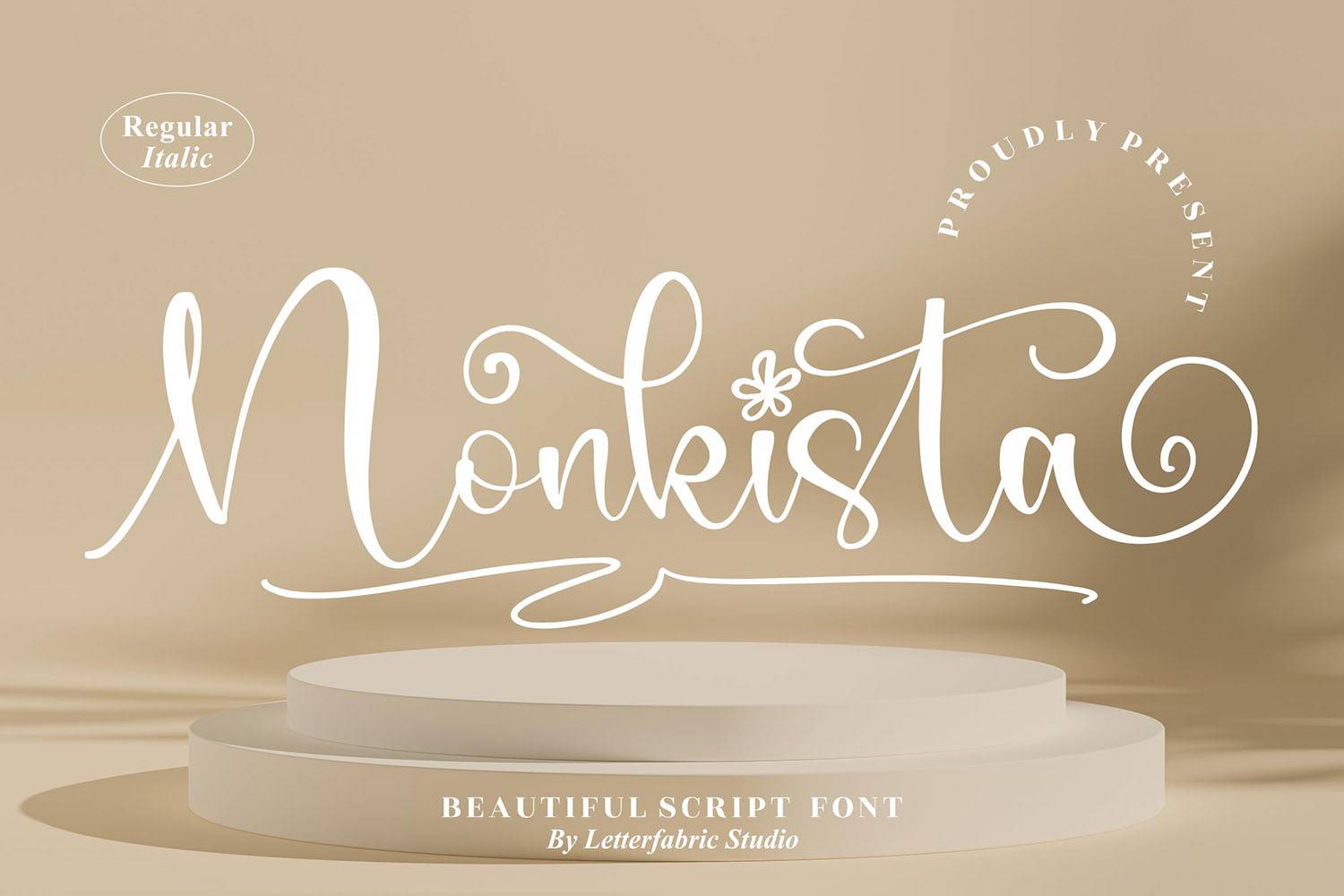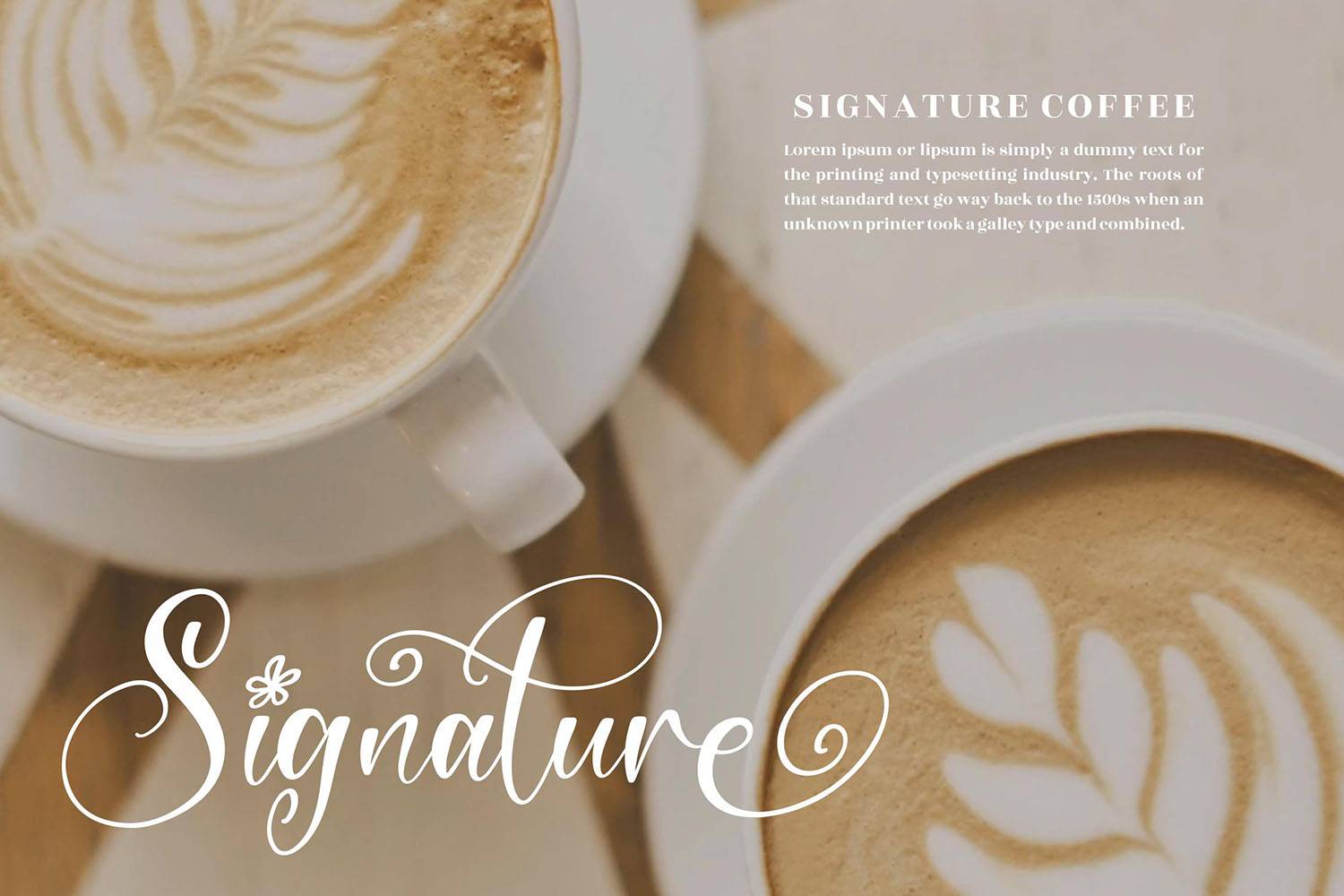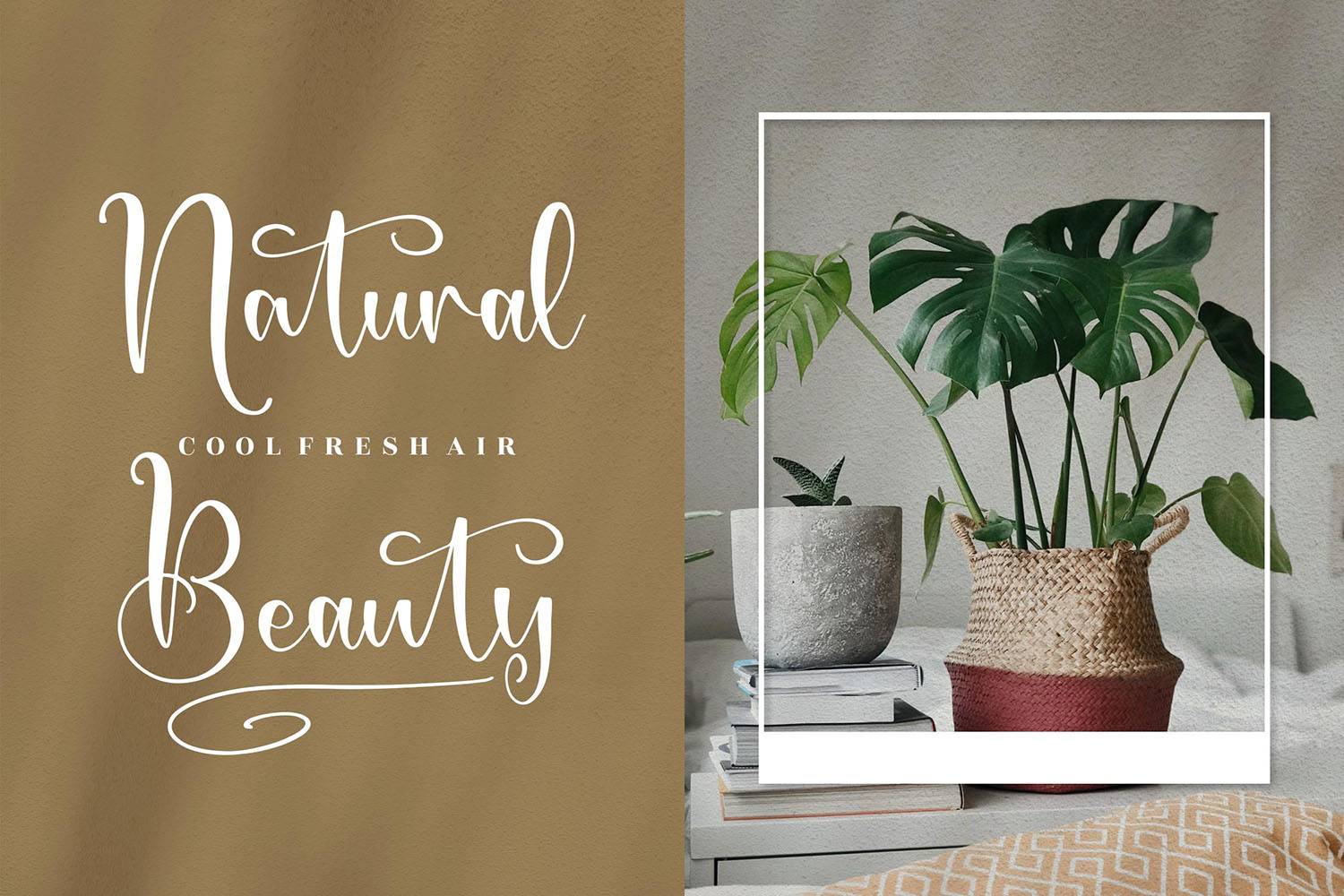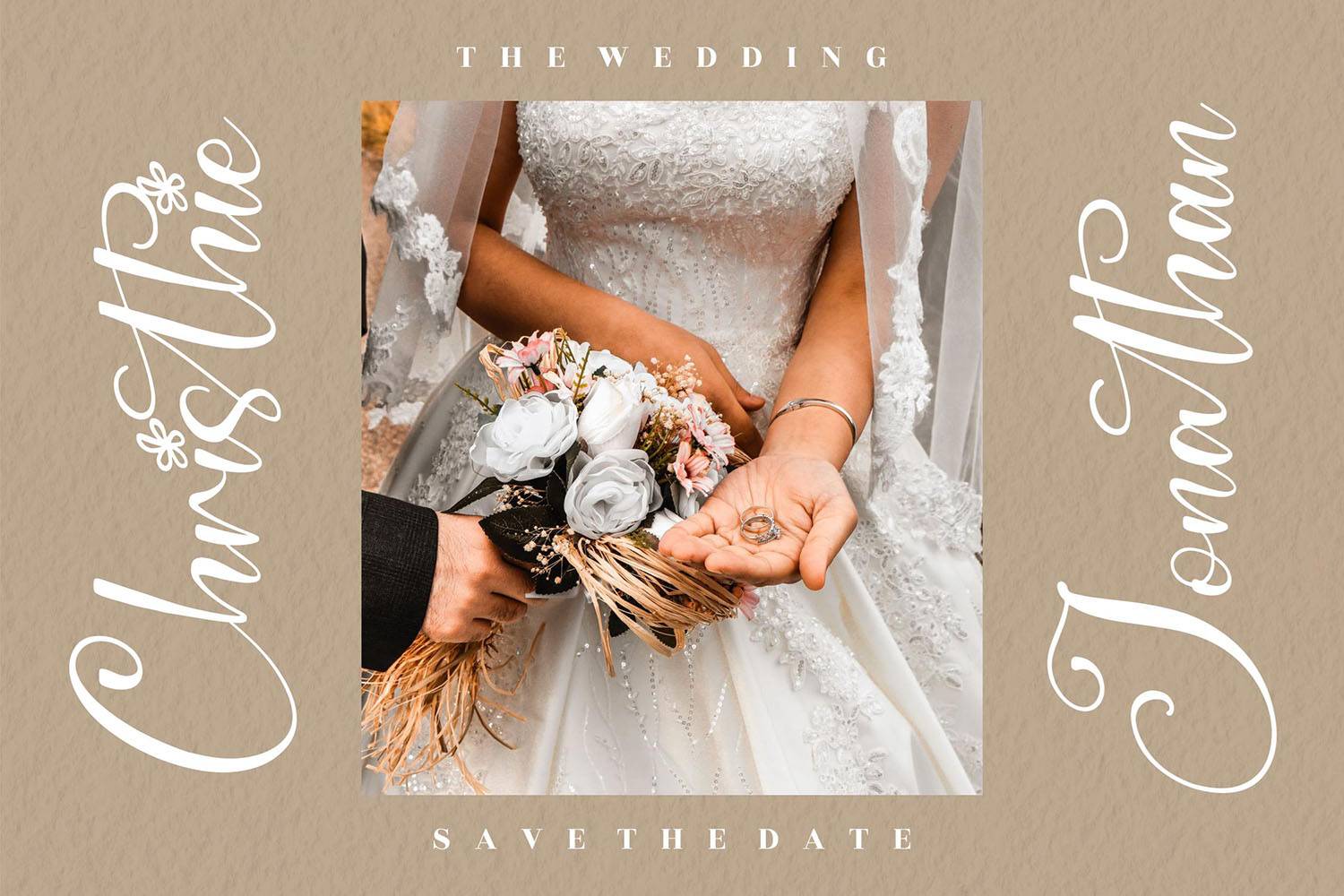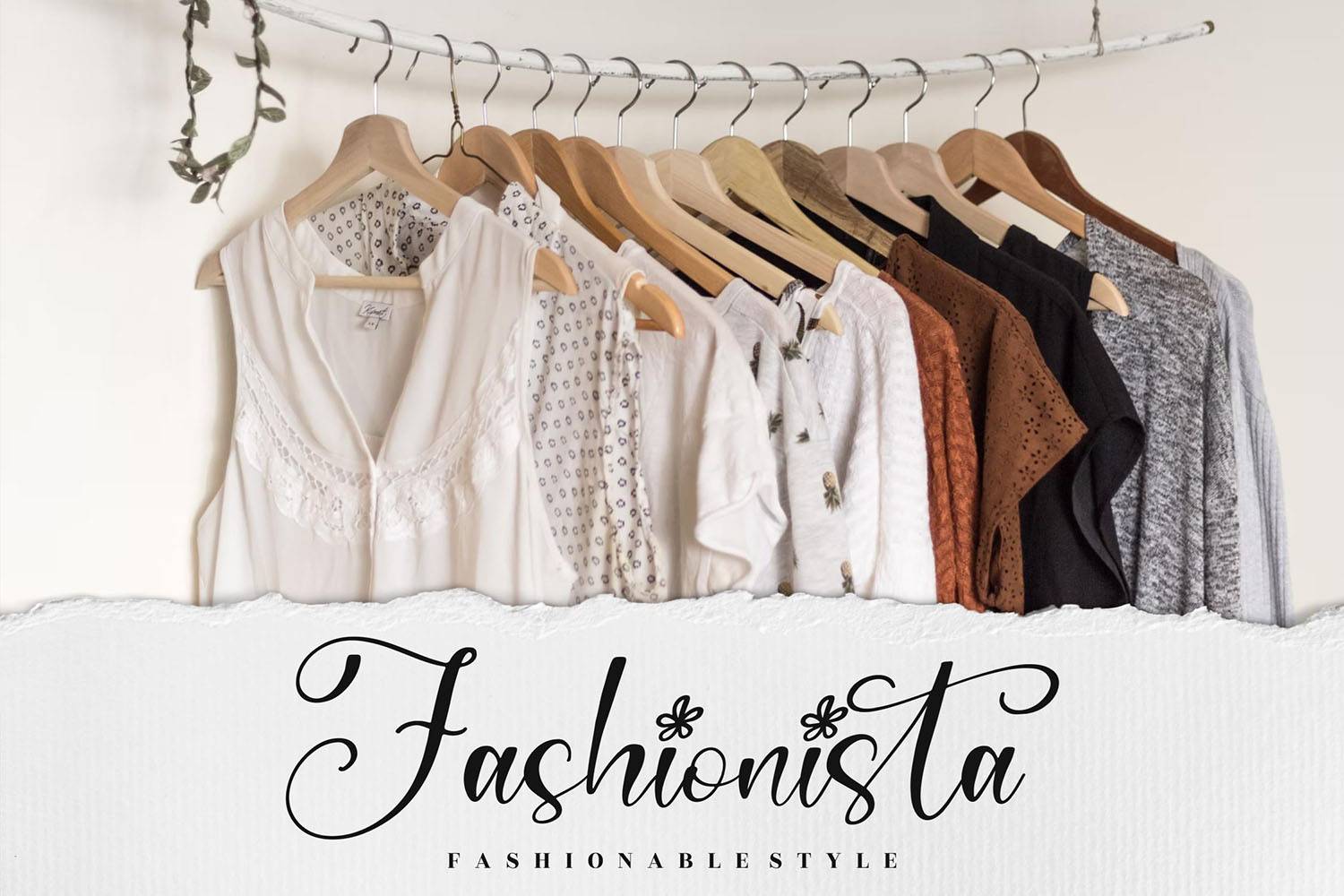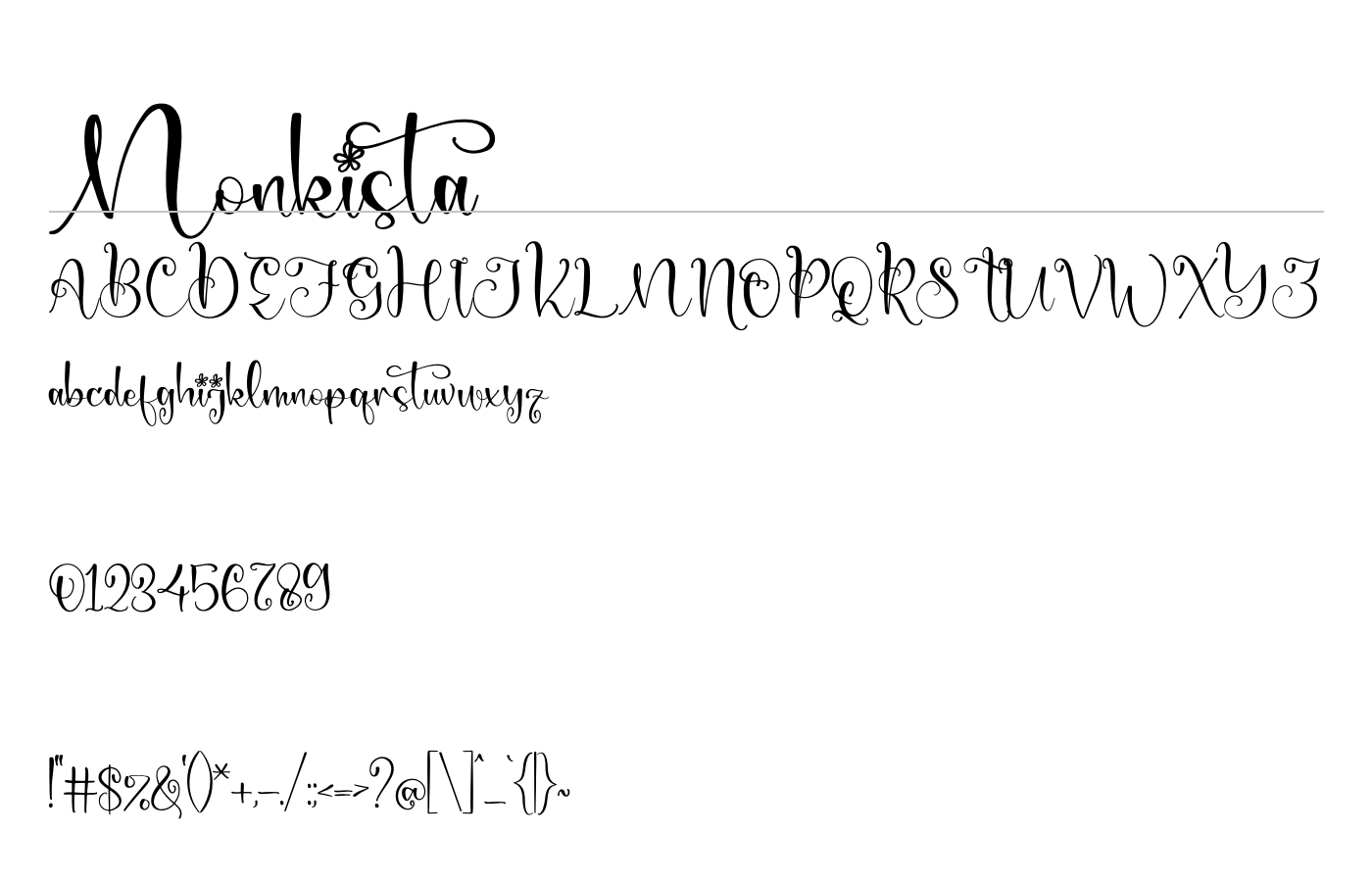
Monkista is a playful and elegant script font featuring delicate, flowing strokes with charming flourishes and whimsical details, especially noticeable in its uppercase characters and decorative elements. Its thin weight and tall, narrow letterforms give it a light, airy feel perfect for creative and feminine branding, invitations, or decorative headlines where a touch of personality and sophistication is desired. This font works best in designs that aim to convey charm and elegance with a handcrafted, artistic vibe.
Monkista Font
About Monkista Font